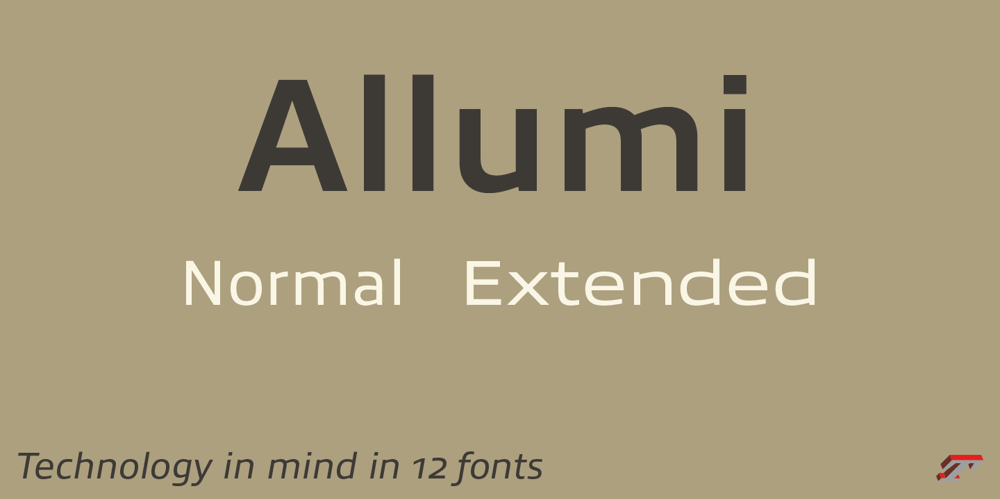
Allumi Std
Allumi Std font
Allumi Std Font Family was designed by Jean François Porchez and published by Typofonderie. Allumi Std contains 12 styles and family package options. Technology in mind in 12 fontsAllumi is a different font. Different from anything Jean François Porchez has designed in the past. Allumi is a sleek typeface designed with technology in mind. It’s a perfect font family for any communication concerning design, robotics, or functionality. Pushed to its extreme limits, the Allumi shapes are neither perfectly round or geometrically square. It’s a human design with a high tech touch. Allumi can be described as the Eurostyle (designed by Aldo Novarese in 1964) of the new century, mixed with Frutiger. Allumi is a serious typeface because of the unique design and sturdy form. The pure shapes can create a global presence today with an eye on the world of tomorrow.Two widthsThe Allumi family has been built around two series of widths, standard and extended. Italics have been carefully designed as slanted roman with all necessary optical and human corrections to create a perfect and neat italic.I Love Typography 2009